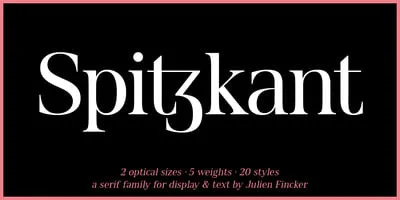
Spitzkant Font
Spitzkant Font is perfect for architectural firm branding, geometric design projects, modern engineering presentations, precision manufacturing logos, technical documentation layouts, contemporary art exhibitions, and sharp industrial graphics.
What makes Spitzkant Font exciting is its sharp precision and angular sophistication, featuring pointed letterforms that capture the essence of geometric accuracy while delivering exceptional clarity and architectural authenticity.
The Spitzkant Font family includes Thin, Light, Regular, Medium, Bold, and Black weights, plus angular variants and precision alternates that enhance the font's sharp character and technical possibilities.
Spitzkant Font represents the cutting edge of geometric typography and precision design methodology through sharp architectural craftsmanship. This precise typeface embodies the principles of angular geometry and technical accuracy, creating a sharp visual language that speaks to professionals who value precision engineering, geometric perfection, and the sophisticated beauty of angular design principles. The font's sharp character and geometric appearance make it ideal for architectural firms, engineering companies, and technical organizations that want to communicate precision, accuracy, and the refined sophistication of geometric design thinking.
Architectural firms and engineering companies consistently select Spitzkant Font for projects that require authentic technical credibility and precision visual appeal. The typeface's angular construction and geometric personality make it exceptionally effective for design studios, engineering firms, and technical organizations where precision and geometric accuracy are paramount. Each character has been crafted with mathematical precision to ensure optimal performance across all technical applications and architectural environments.
The technical advantages of Spitzkant Font extend beyond its geometric appeal to include practical functionality for diverse precision applications. The font maintains exceptional legibility in technical drawings while delivering the distinctive character that creates memorable professional experiences and connects with audiences seeking accurate, geometric design solutions. Its comprehensive character set includes technical symbols and geometric elements that make it particularly suitable for architectural documentation and precision communication.
Design firms, engineering companies, and technical organizations frequently choose Spitzkant Font because of its ability to instantly convey geometric precision and technical sophistication. The typeface's angular aesthetic helps establish credibility in competitive technical markets while appealing to clients who value precision engineering, geometric accuracy, and the reliable results that come from mathematical precision and sophisticated geometric design methodology.